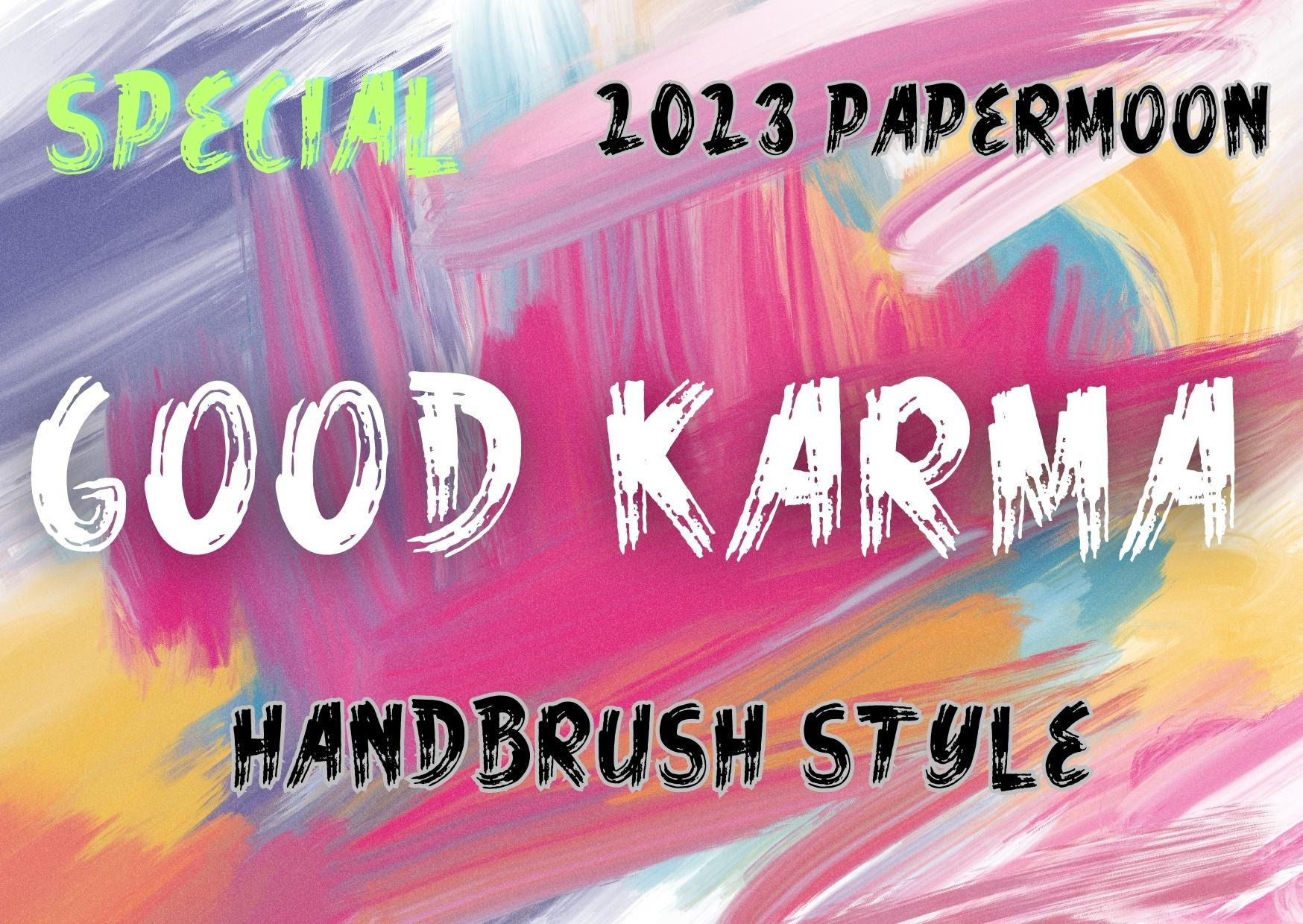
Good Karma Handbrush Font
Introducing Good Karma Handbrush Script Font, a fresh and captivating typeface.
Good Karma is an exquisite handbrush script font, designed to bring a touch of authenticity and creativity to your projects. With its beautifully crafted characters, well-adjusted spacing, and a unique style, this font exudes elegance, mystery, and a textured, rustic charm.